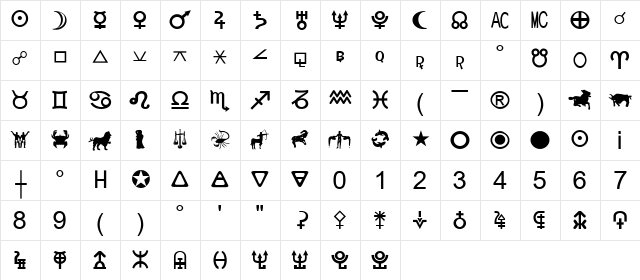
AstroFont99 Regular Free Font
AstroFont99 Regular
Complete AstroFont99 Regular glyph index. Displaying only characters natively supported by AstroFont99 Regular font.
Design Context for AstroFont99
AstroFont99 is a composed and adaptable typeface that performs quietly and consistently across a wide range of design contexts.